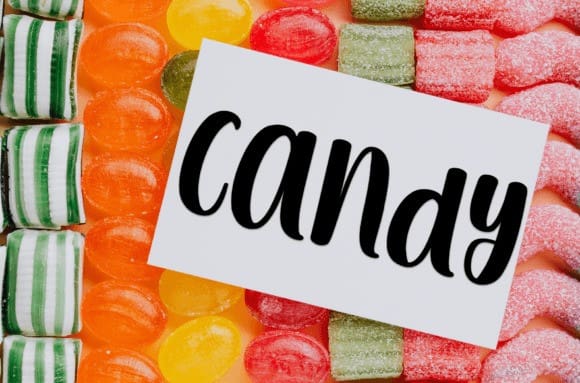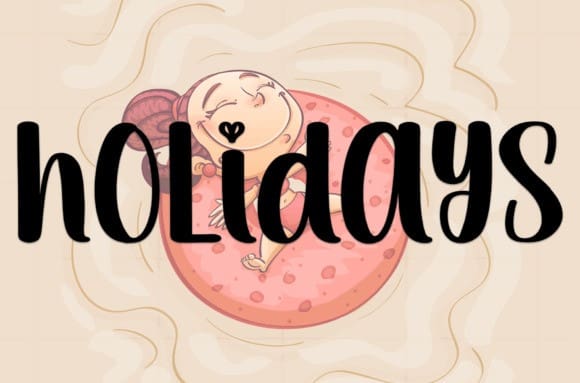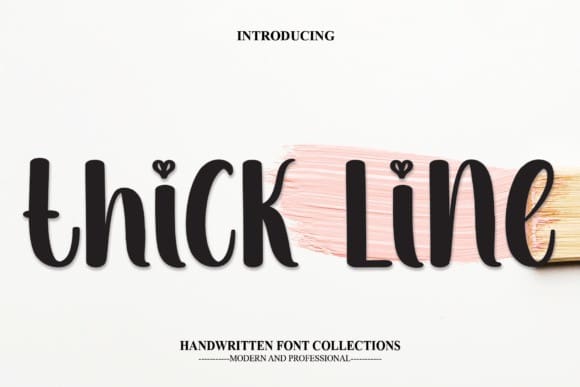
Thick Line Font
Thick Line Font is a sweet and friendly handwritten font. Fun and relaxed, this font is ideal for writing wedding invitations, cards, or any other design that might need a lovely touch!